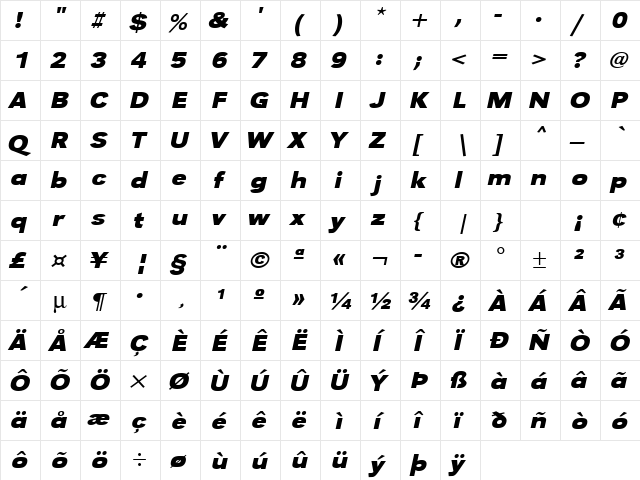
URWGroteskTExtWid Bold Oblique Font Preview
Design Context for URWGroteskTExtWid Typeface
URWGroteskTExtWid has the quiet confidence of well-executed sans-serif typography: versatile, unobtrusive, and dependable at any size. Its italic angle brings a sense of urgency and motion to the letterforms. The heavy weight commands attention and anchors typographic hierarchies.
A strong choice for UI design, app interfaces, bold signage, and corporate brand systems.
Font Pairing: Use URWGroteskTExtWid for headlines alongside a lighter-weight sans or serif for body copy to establish clear visual hierarchy.
Pro Tip: Pair URWGroteskTExtWid with a display or serif font for headlines — its neutral character makes it an excellent supporting player in complex typographic systems.